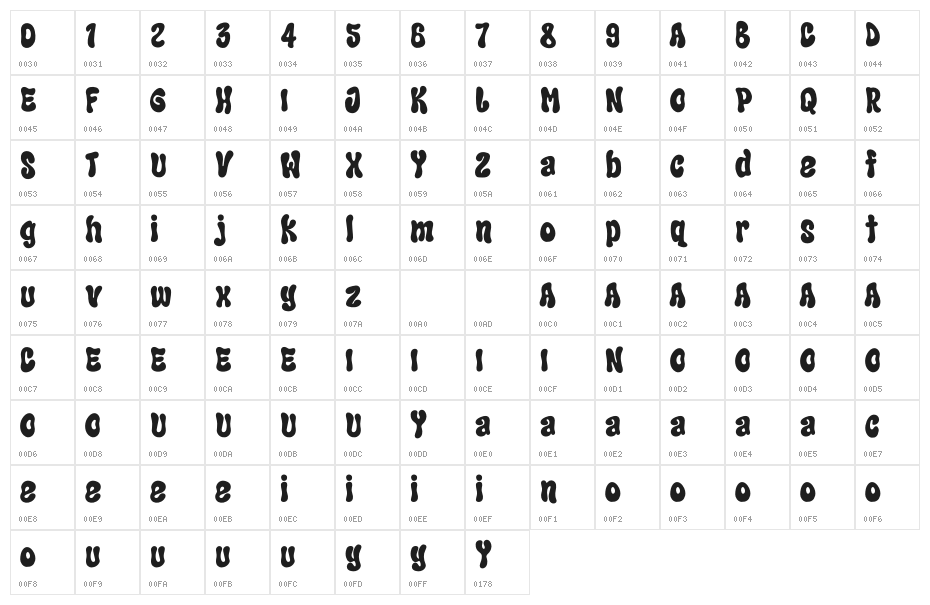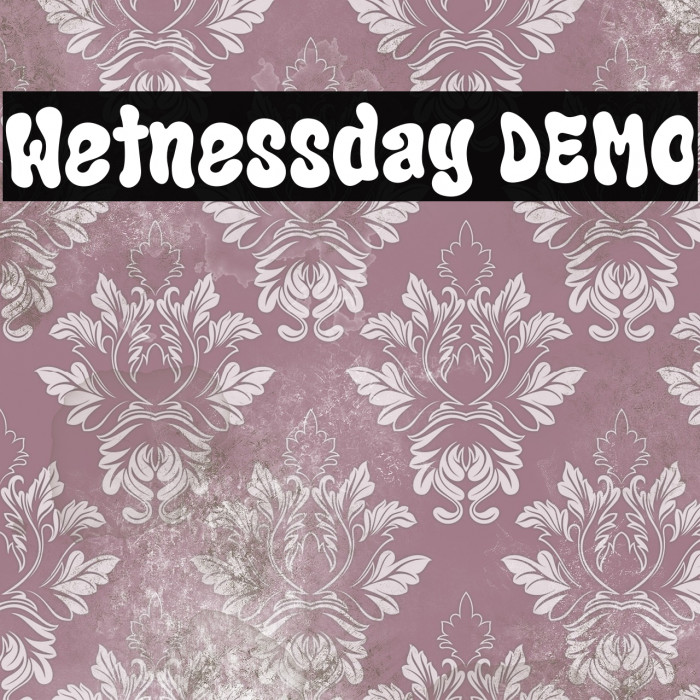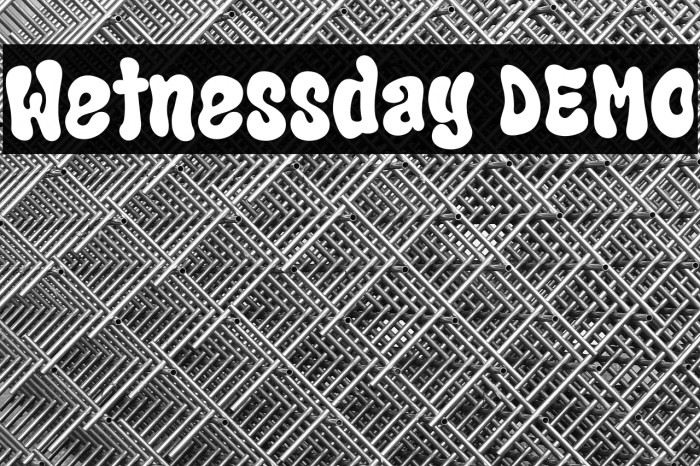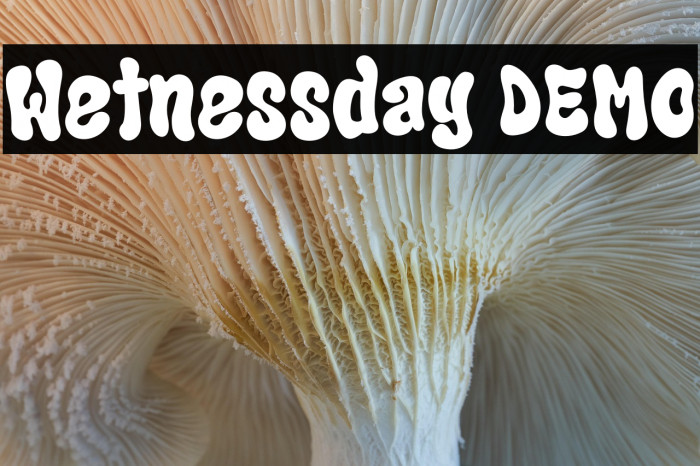
Wetnessday DEMO Font
Wetnessday DEMO Description
This font features a bold and playful design with a distinctly rounded and bubbly appearance. Each character is crafted with thick strokes, creating a sense of weight and presence. The letters have a whimsical, almost cartoon-like quality, making them stand out with their unique and eye-catching style. The overall design is consistent across uppercase, lowercase, and numeric characters, maintaining a cohesive look. The absence of sharp edges and the use of smooth curves contribute to its friendly and approachable aesthetic.